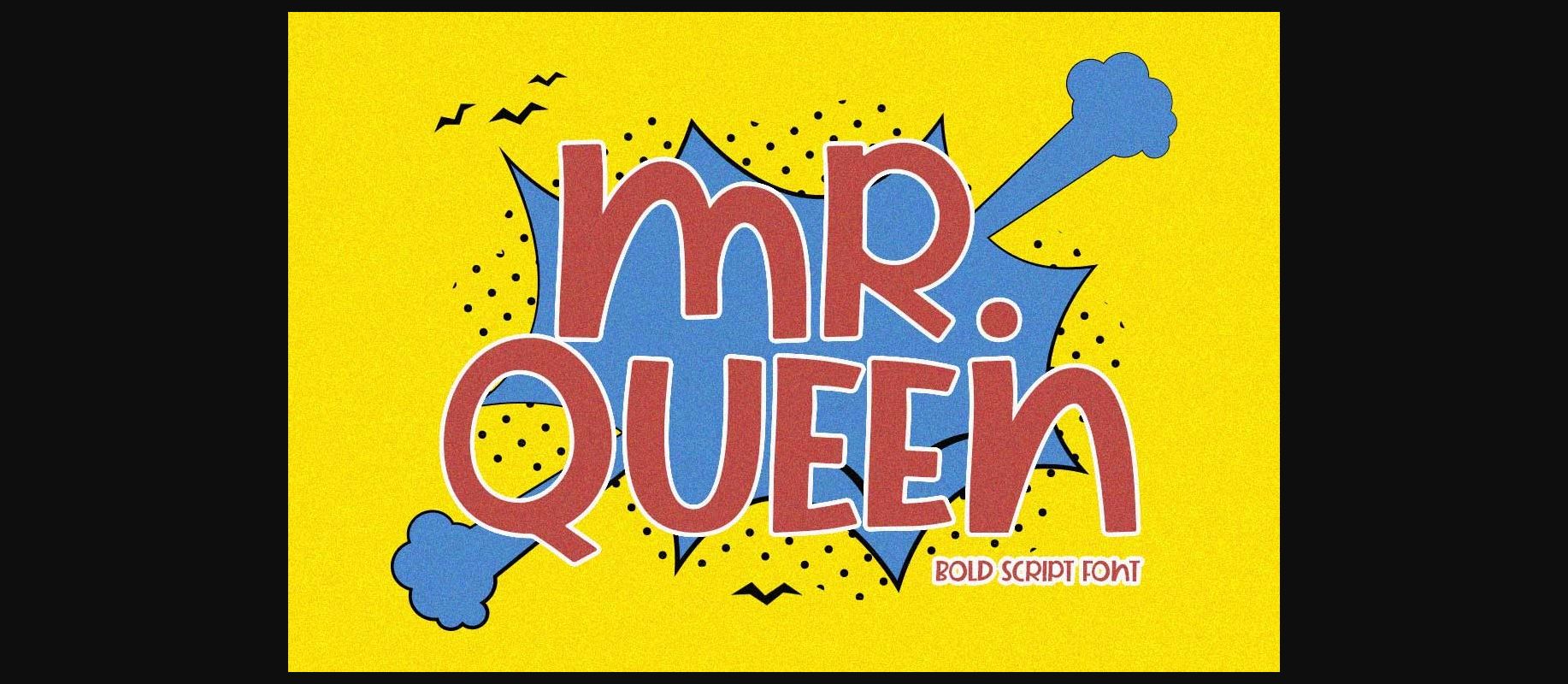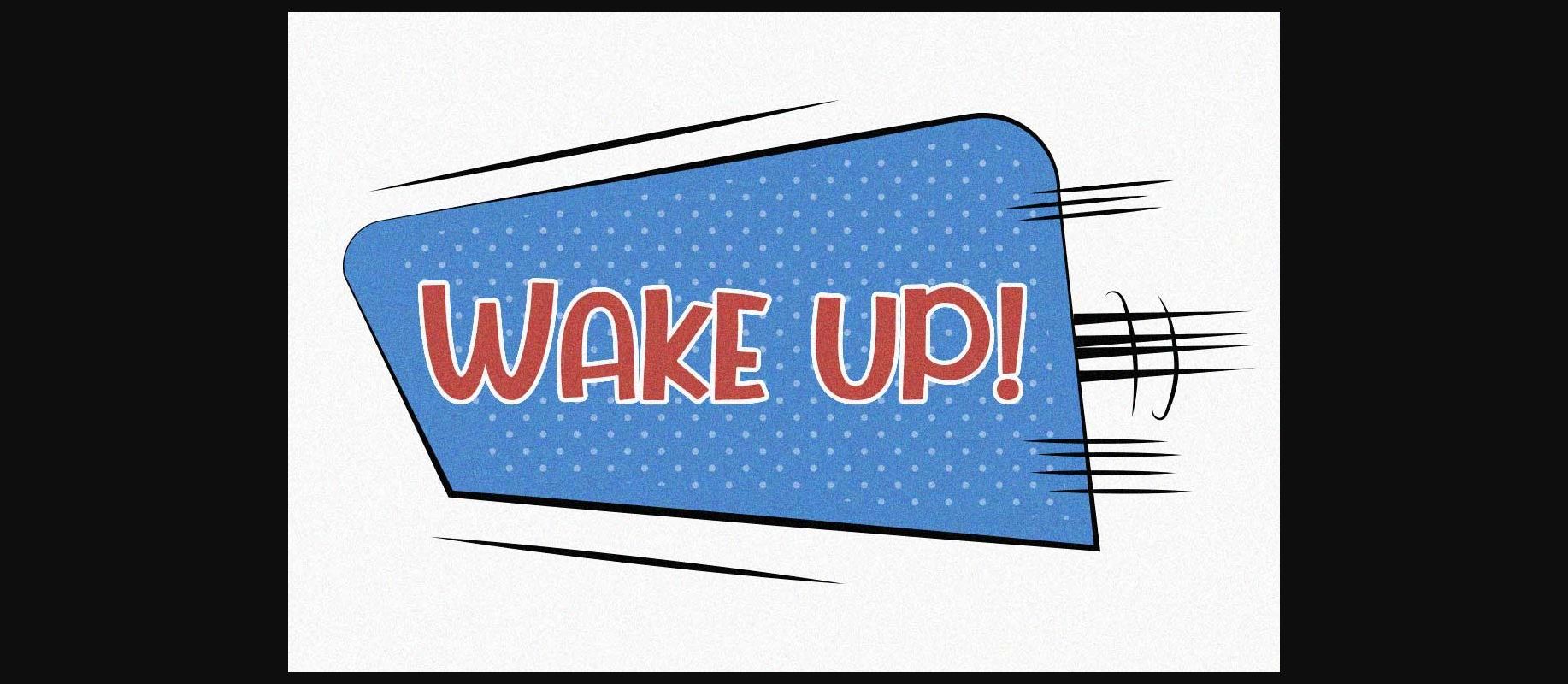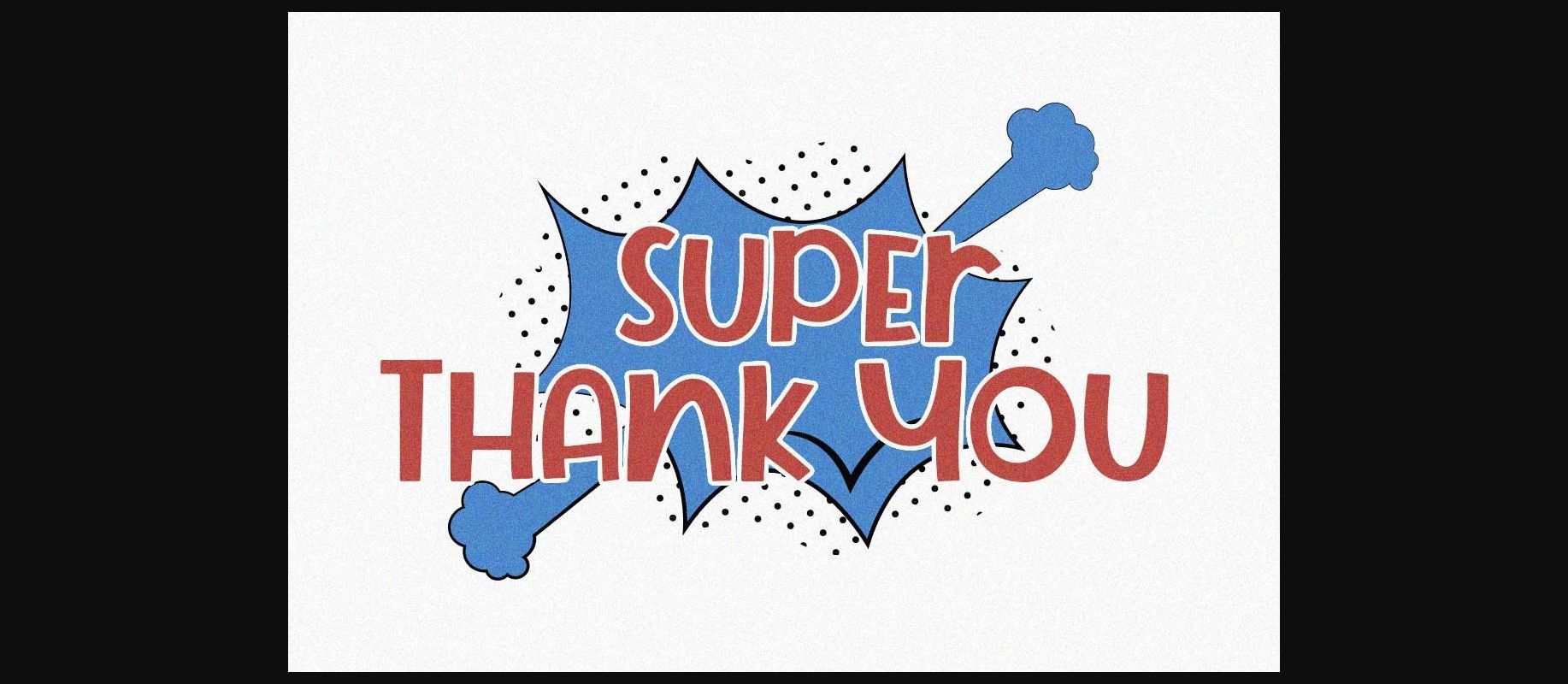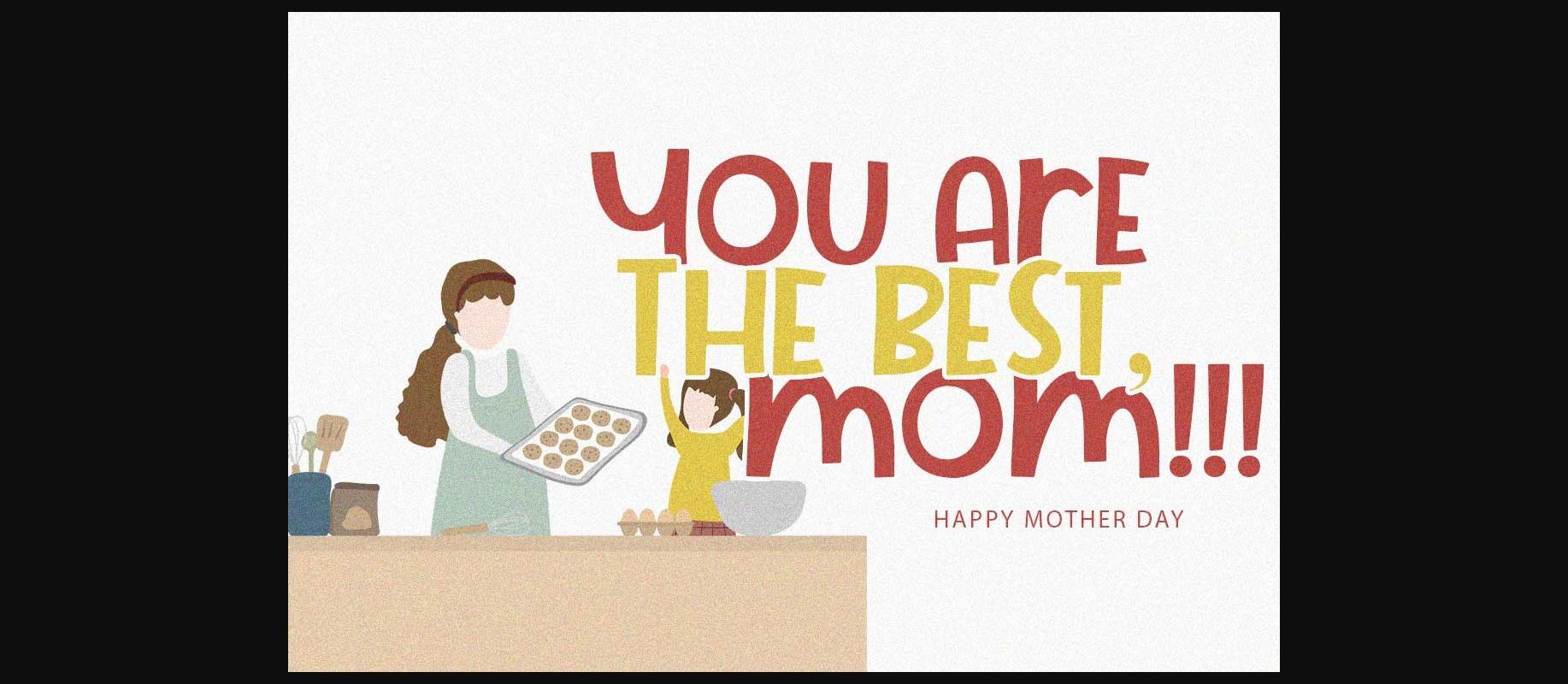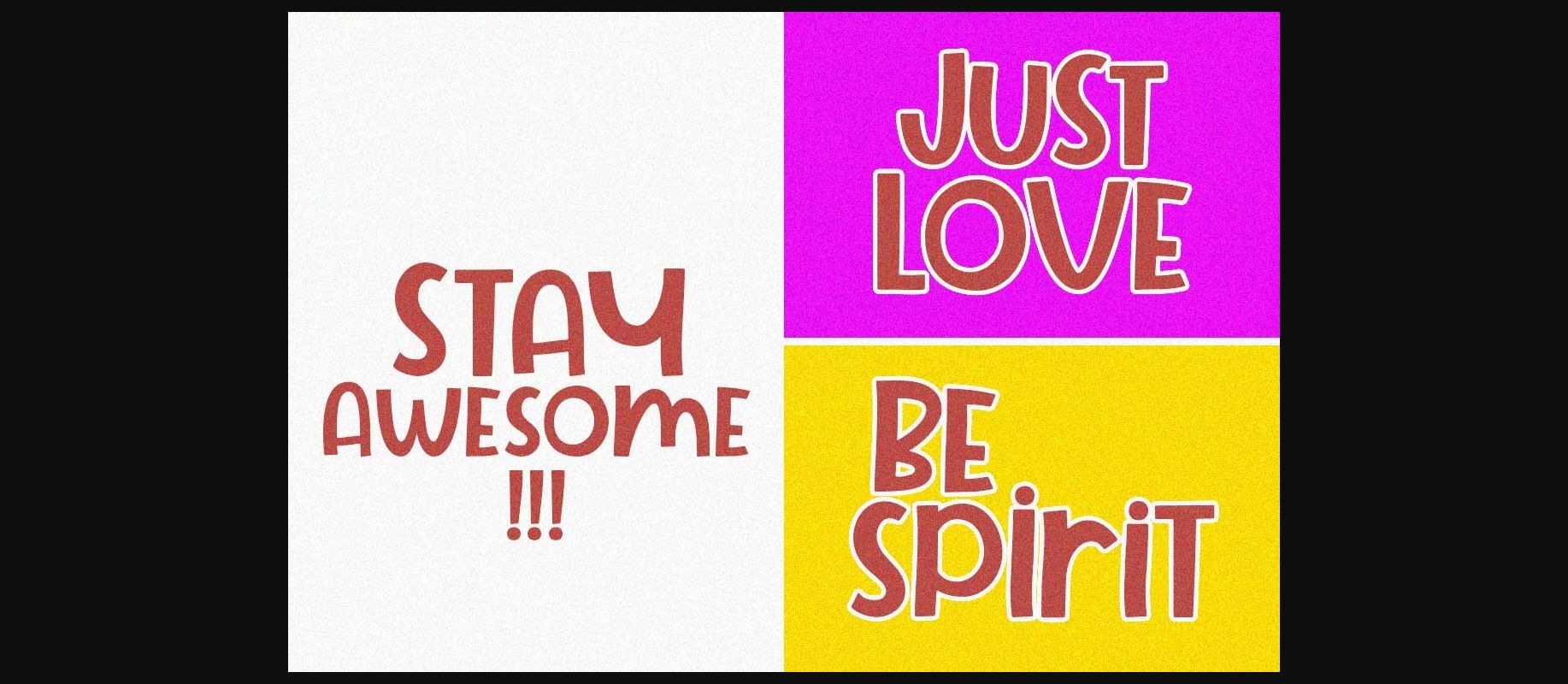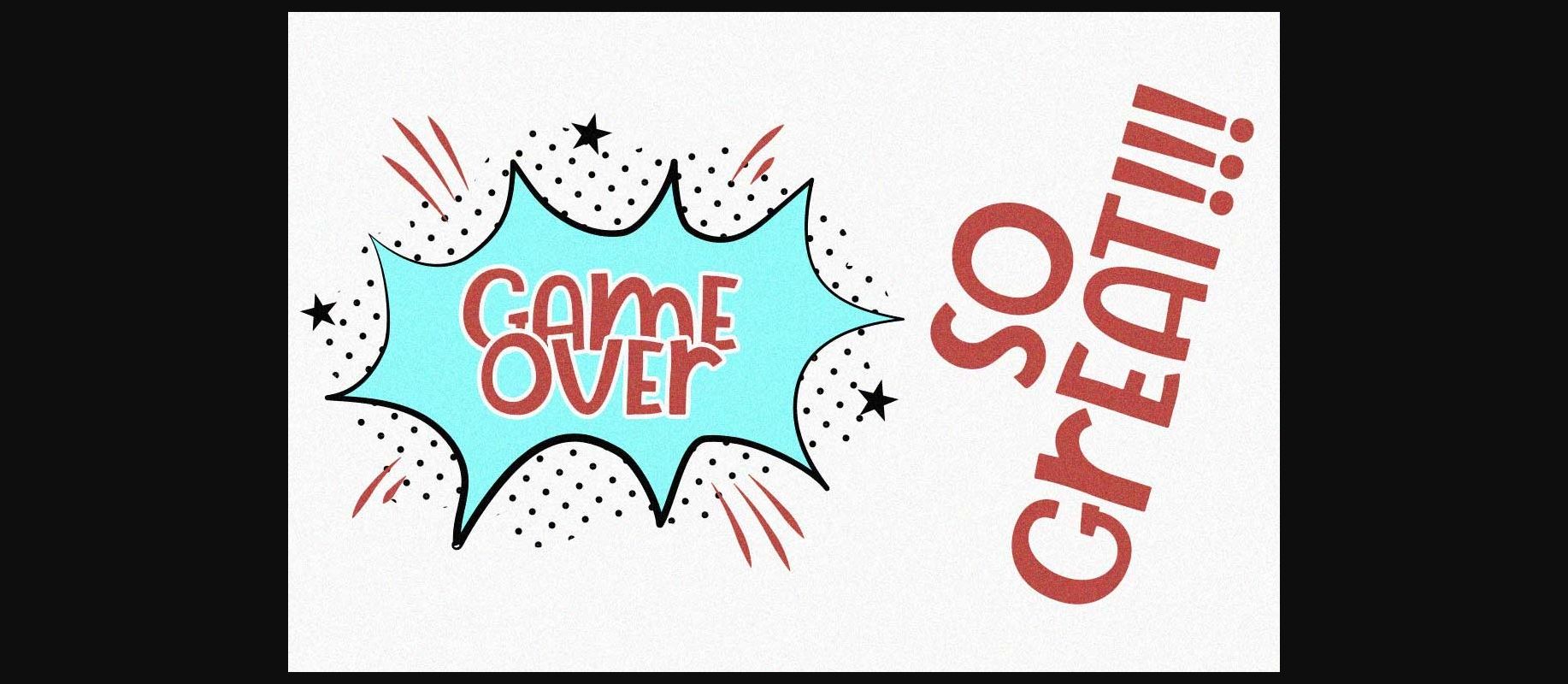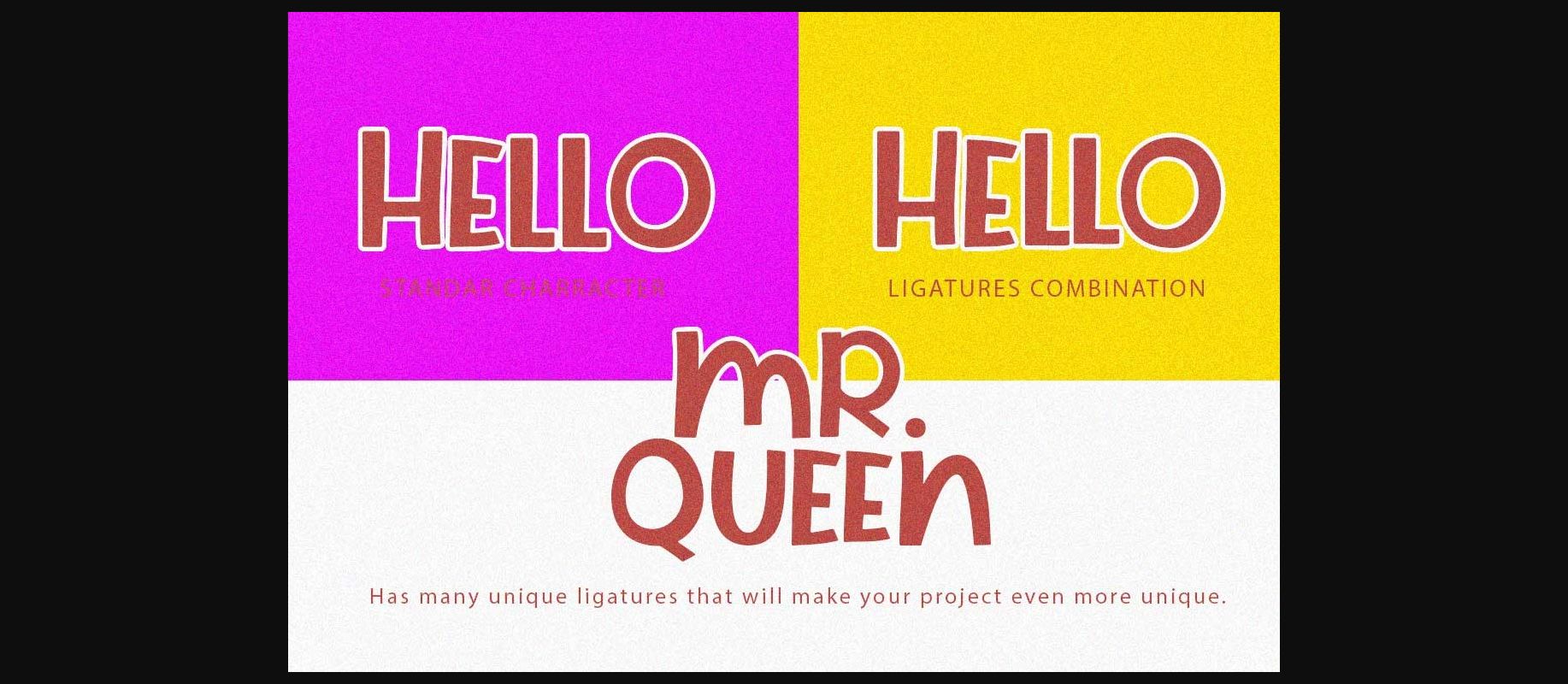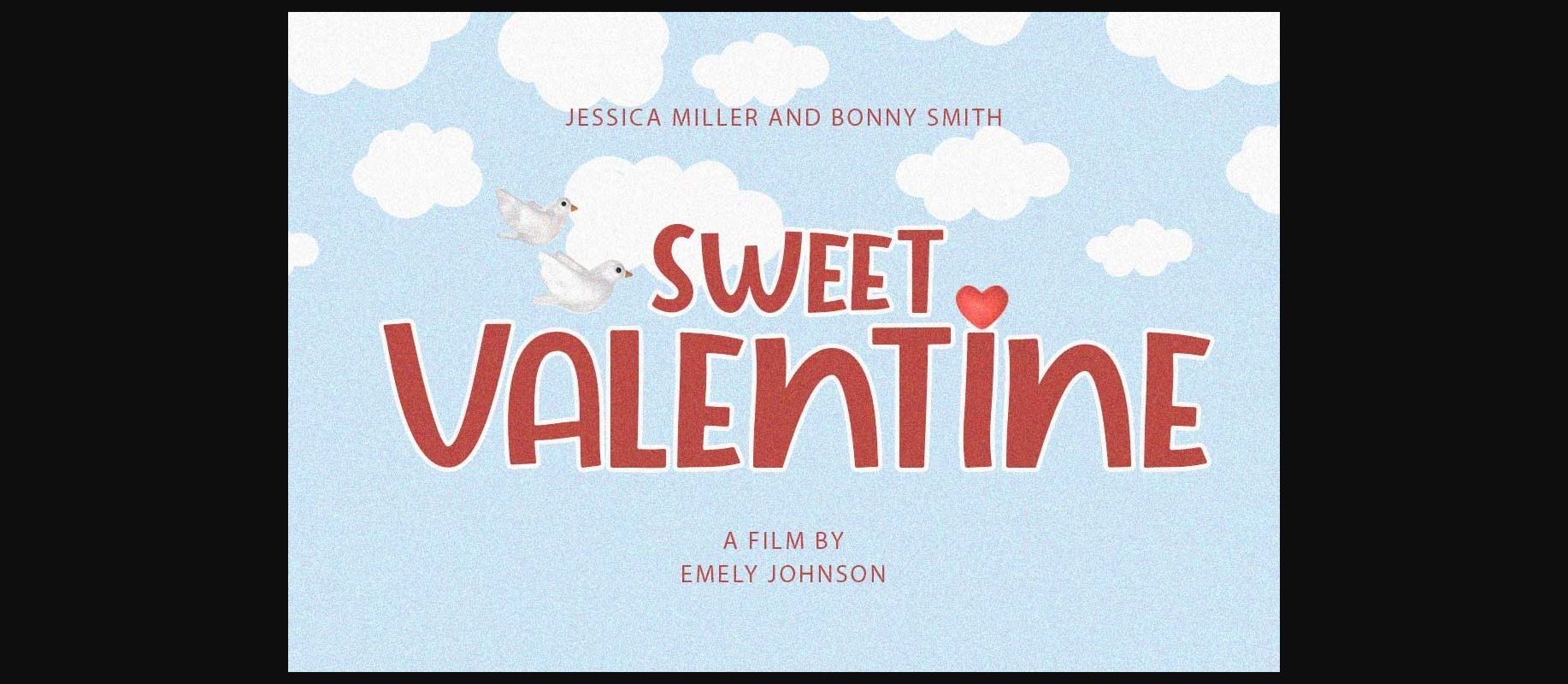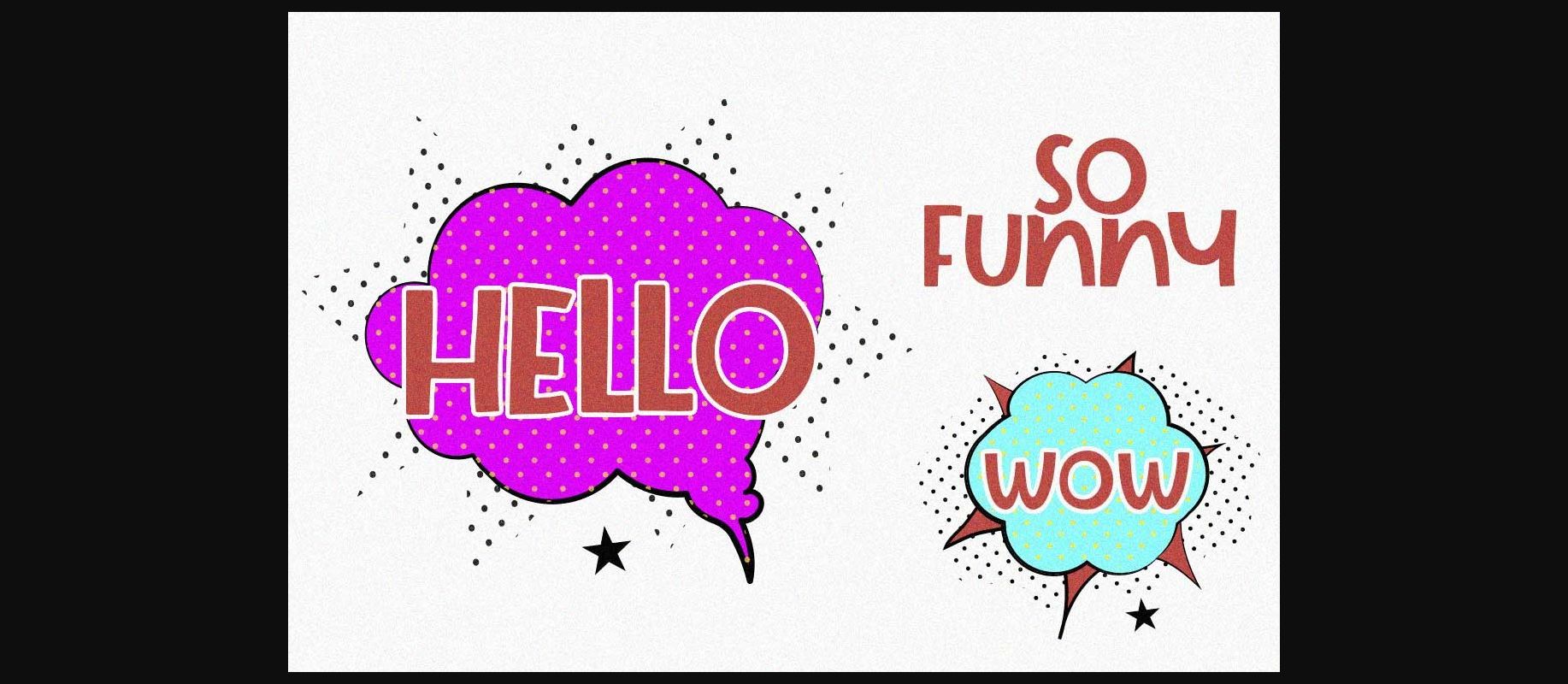
Mrqueen Font
About Mrqueen Font
MrQueen is a stylish and charismatic decorative font. Because of its versatile style, this font can be used to create attractive party invitations, engaging posters, and all kinds of crafts that you have in mind. The font is PUA encoded which means you can access all of the glyphs and ligatures freely.